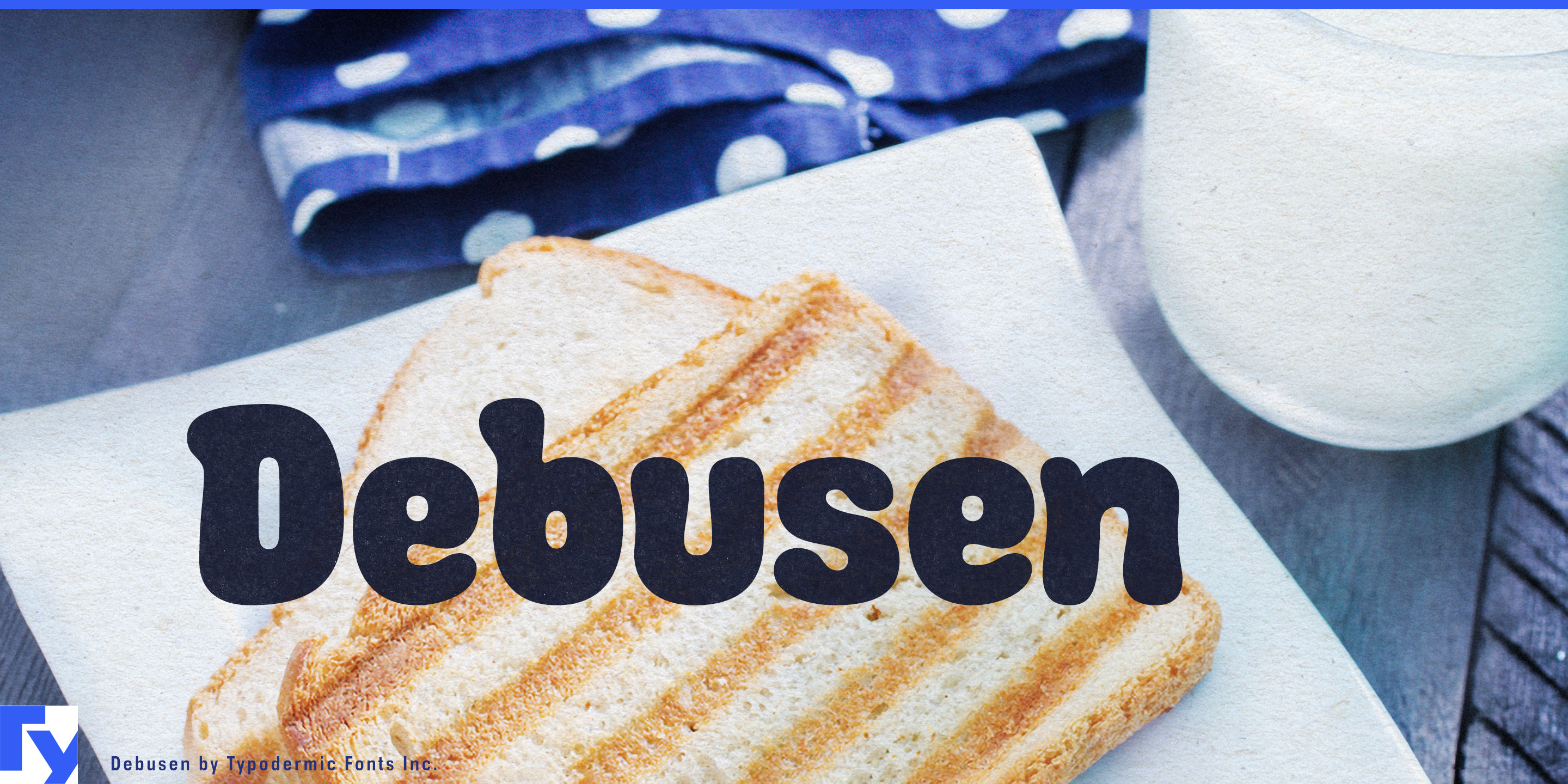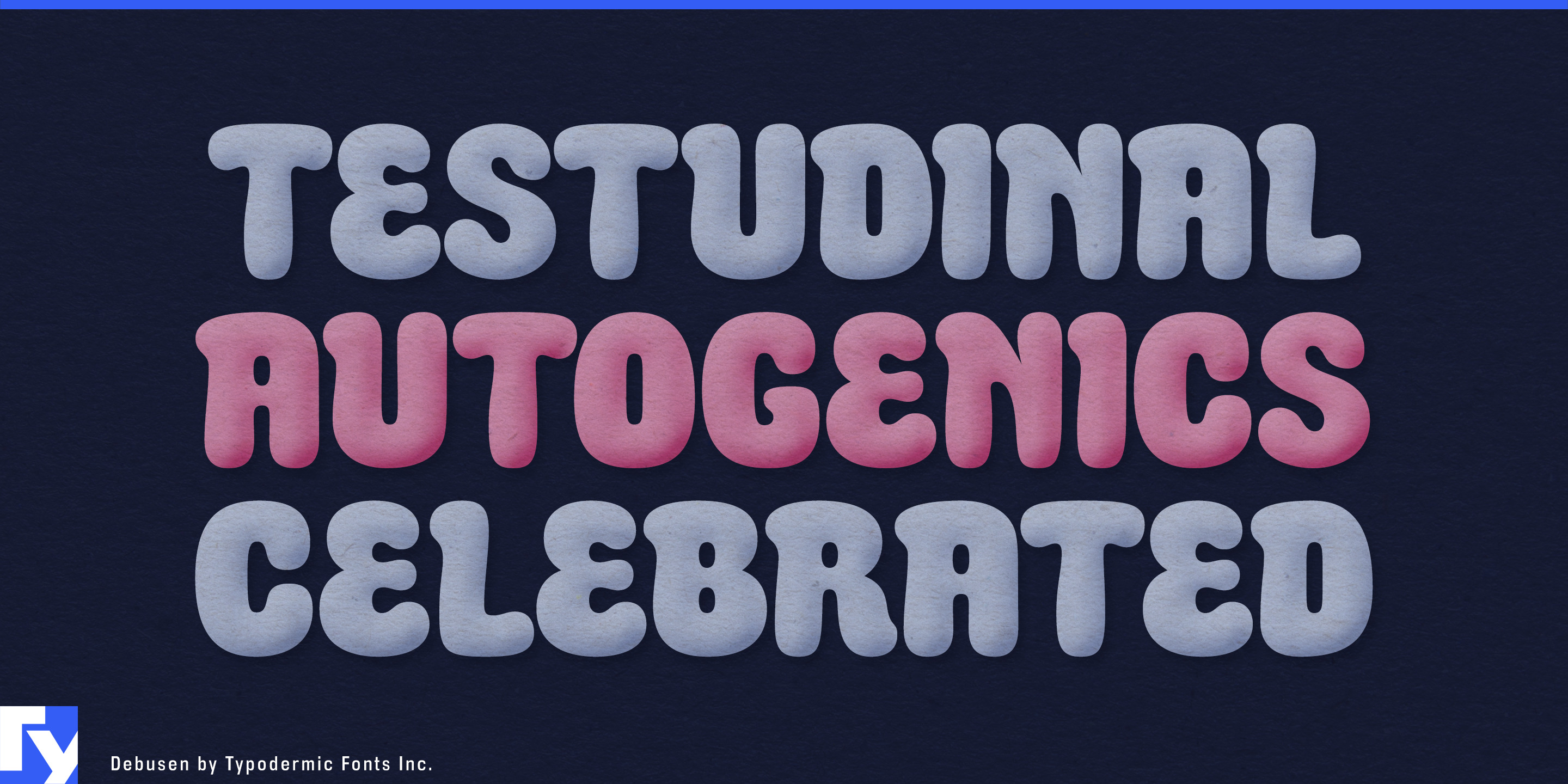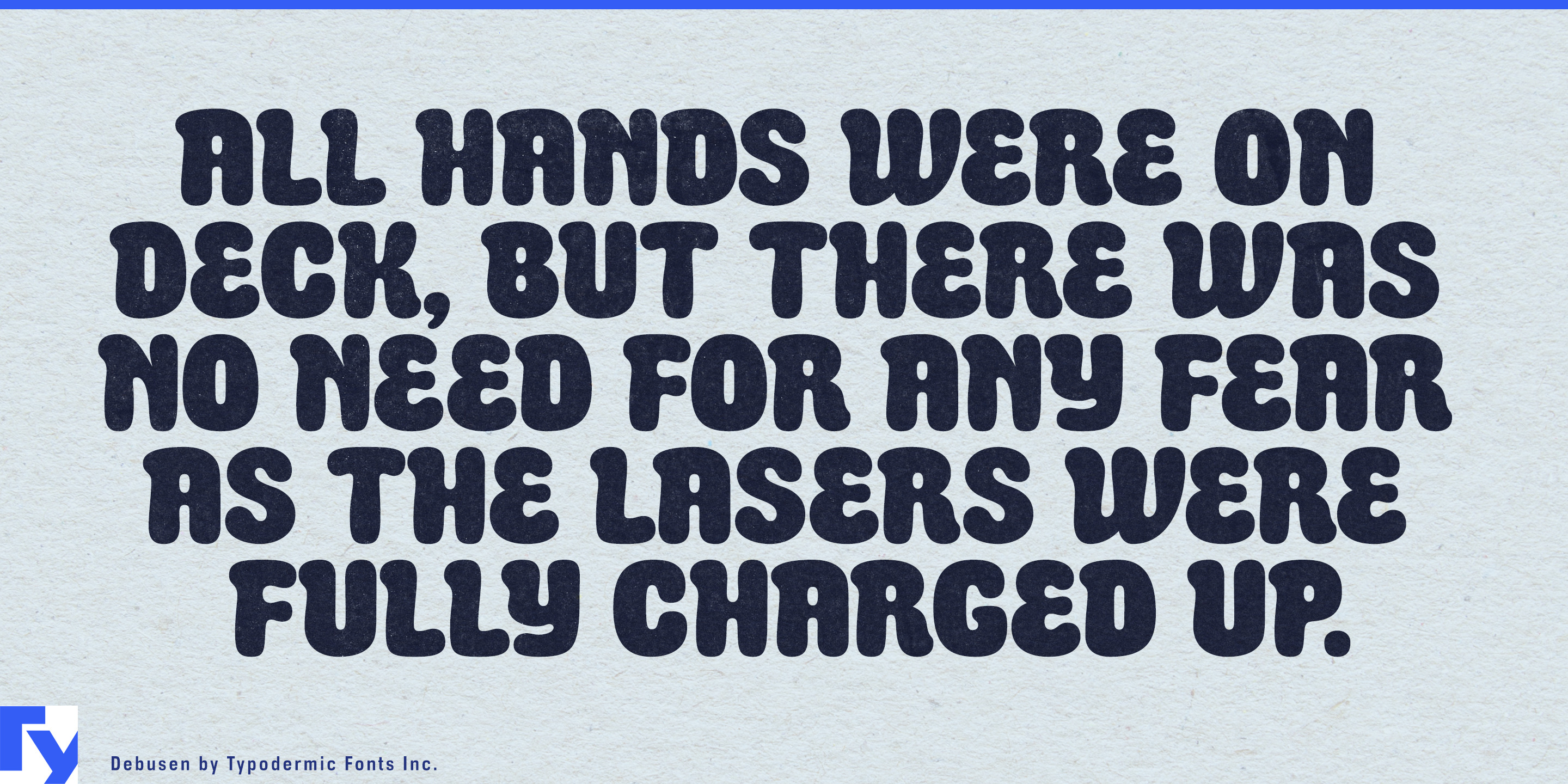
Debusen
Soft foods have a hard packaging problem. Before anyone can squeeze the loaf, pull apart the roll, or bite into the gummy, the package has to communicate tenderness, chew, and spring. An ordinary rounded sans may look friendly, but it still looks manufactured. Debusen makes words appear as though they have risen, expanded, and pressed against their own outlines.
Heavy strokes bulge around narrow counters, while terminals spread into soft knobs and flattened cushions. The letters resemble dough pushed through a shaped opening, foam settling into a mold, or fabric packed with stuffing. That physical exaggeration gives Debusen a bouncy, slightly ungainly rhythm with more substance than conventional bubble lettering.
Milk bread, brioche, cinnamon rolls, muffins, doughnuts, soft cookies, mochi, marshmallows, gummy candy, chewy cereal bars, and filled pancakes all provide natural territory. Debusen can carry product names, flavour launches, multipack cartons, freezer displays, menu boards, delivery boxes, and seasonal promotions. Its forms suggest fluffiness, stretch, filling, air pockets, and a soft centre without drawing any of them literally.
Products made through rising, culturing, and fermentation reveal another side of the same idea. Sourdough starters, yogurt, kefir, whipped desserts, fermented dough, and probiotic snacks can connect Debusen’s swollen forms with bubbles, yeast, expansion, and microbial activity.
Beyond food, Debusen belongs wherever products invite squeezing, stretching, molding, or hugging. Squishy toys, modeling compounds, slime kits, foam craft sets, plush collectibles, inflatable play equipment, and bath products can use it on packaging, retail displays, and animated campaigns. Soft-sculpture exhibitions, textile shows, tactile museum programs, comedy series, children’s animation, and exuberant variety-show graphics offer further room for cheerful excess.
Debusen works best as the physical voice of a design. Let it handle product names, campaign headlines, flavour callouts, exhibition titles, and short bursts of oversized copy; a quieter companion can take care of ingredients, schedules, instructions, and dense text. The contrast gives softness room to expand.